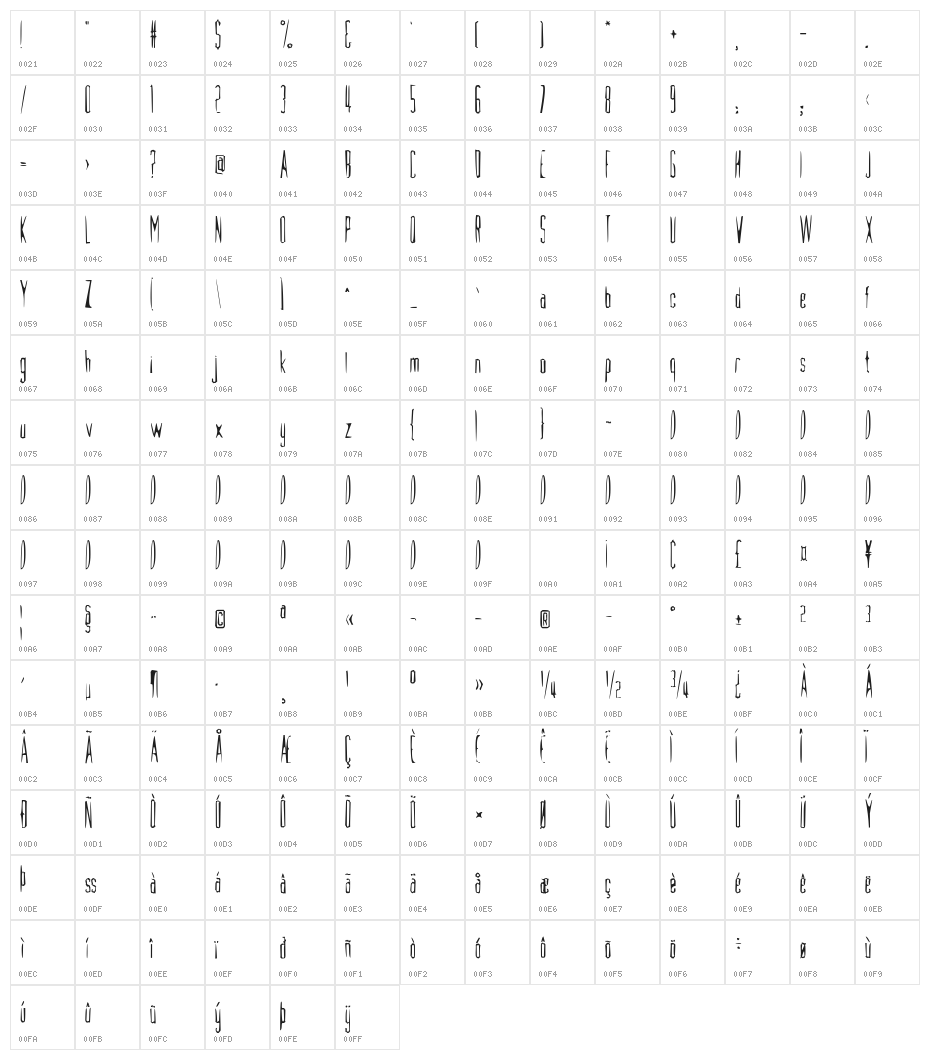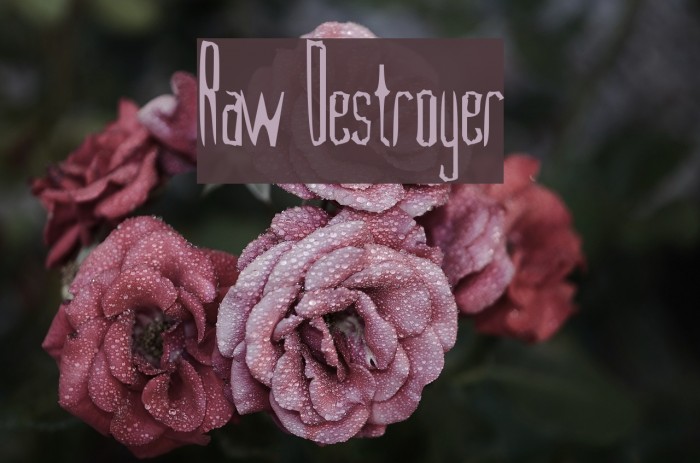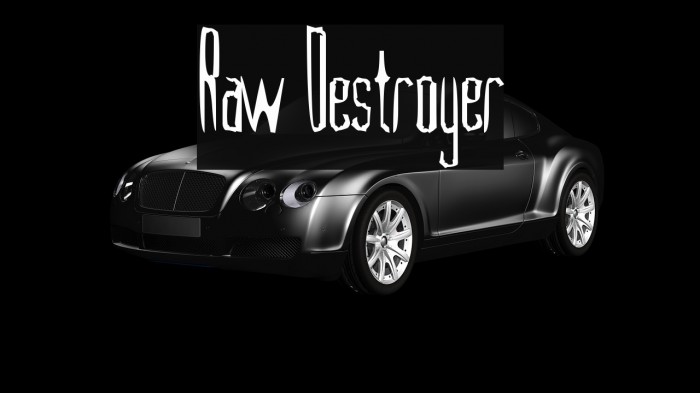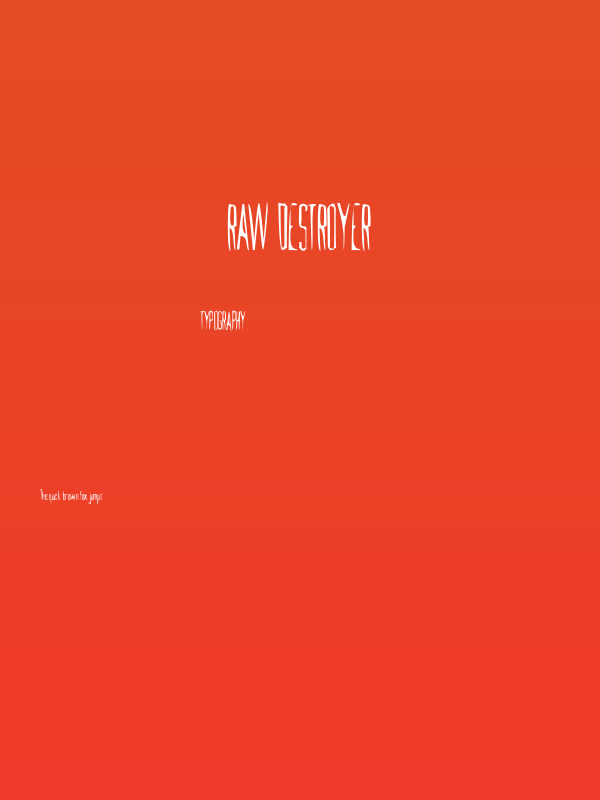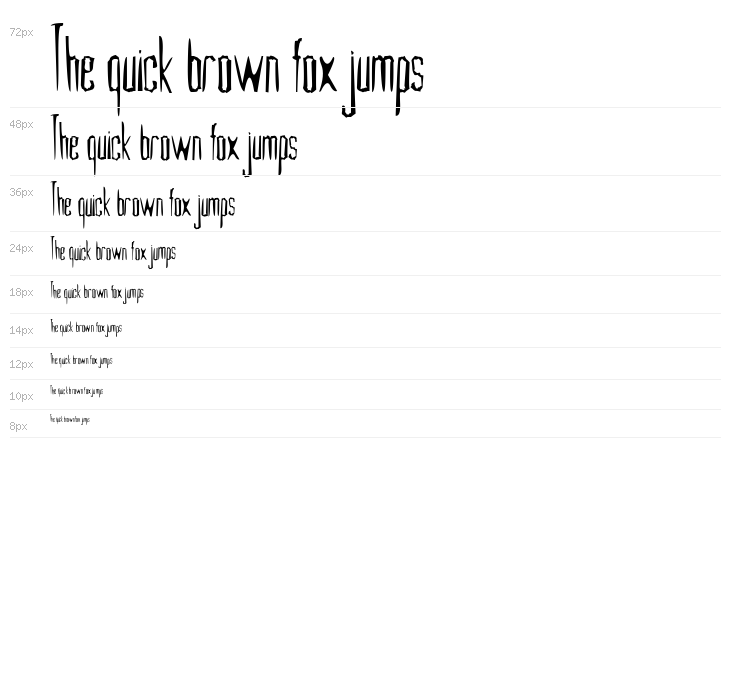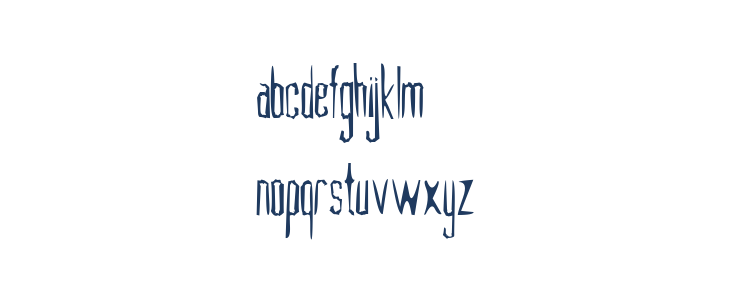
Raw Destroyer Font
Raw Destroyer Description
This font features a unique and edgy design with elongated, narrow characters that create a striking visual impact. The uppercase letters are particularly tall and slender, while the lowercase letters maintain a consistent style with slightly more variation in width. The numbers and special characters follow the same aesthetic, contributing to a cohesive look. The font's irregular strokes and sharp angles give it a raw, dynamic feel, making it ideal for projects that require a bold and unconventional appearance.
| Overall Style | Modern, Edgy |
| Proposed Projects | Ideal for music album covers, movie posters, edgy branding, and artistic projects that require a bold statement. |